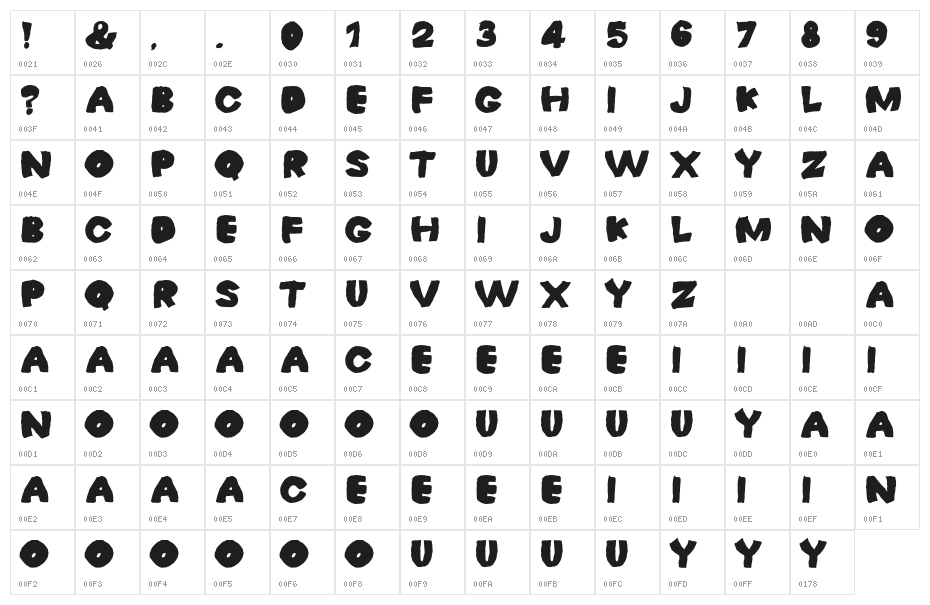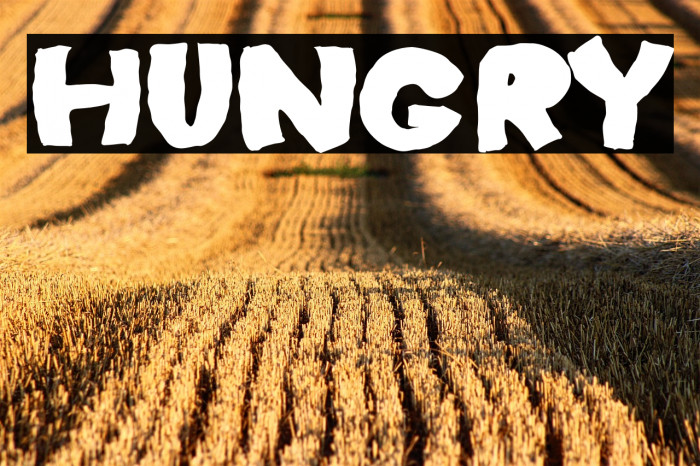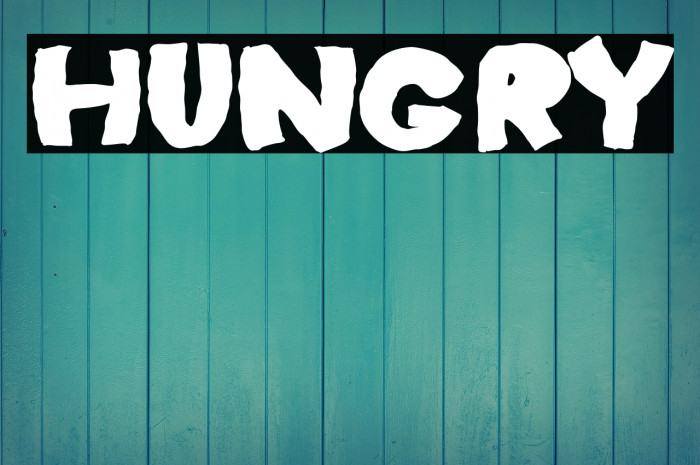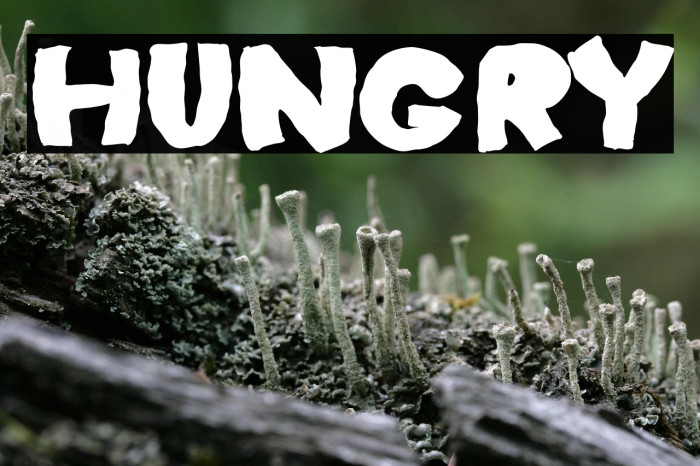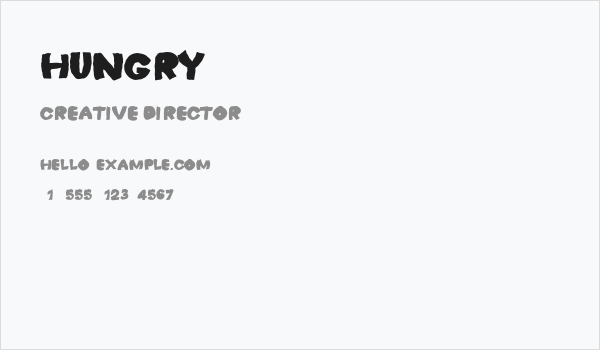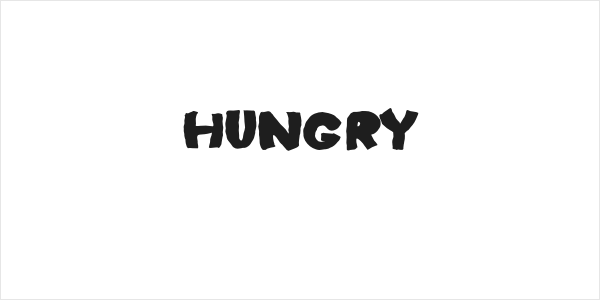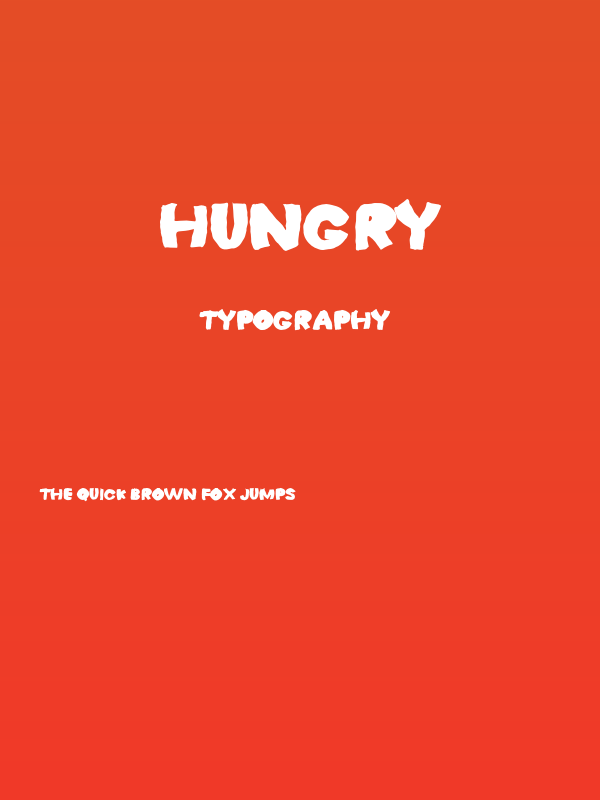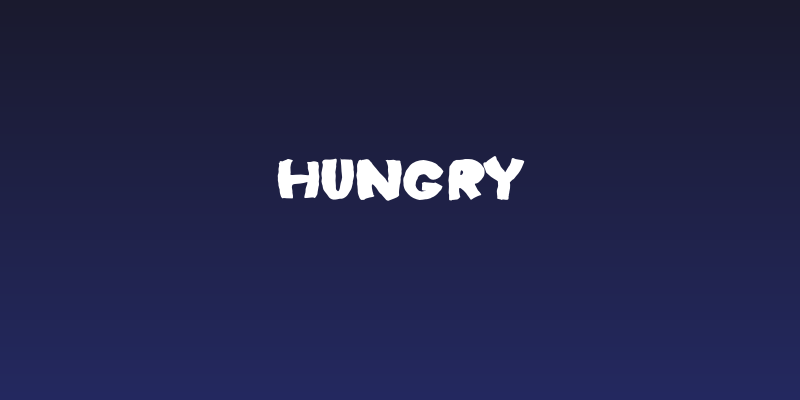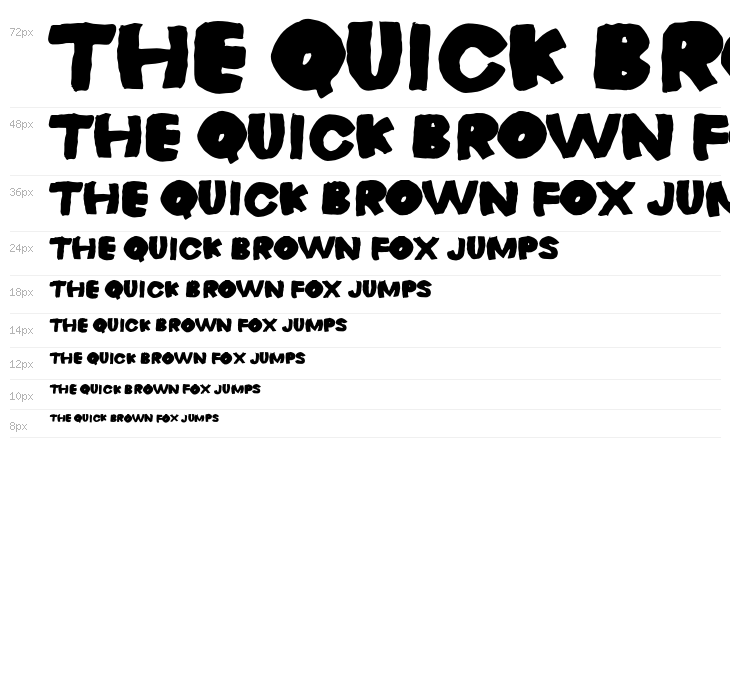
Hungry Font
Hungry Description
This font features a bold and playful style with a hand-drawn appearance. The characters are thick and rounded, giving them a friendly and approachable look. The strokes are uneven, adding a sense of spontaneity and energy. The letters are slightly irregular, which enhances the casual and informal vibe. This font is highly legible, making it suitable for various creative projects. The numbers and special characters maintain the same playful aesthetic, ensuring consistency across all text elements.
| Proposed Projects | Ideal for children's books, playful branding, posters, and creative social media graphics. |